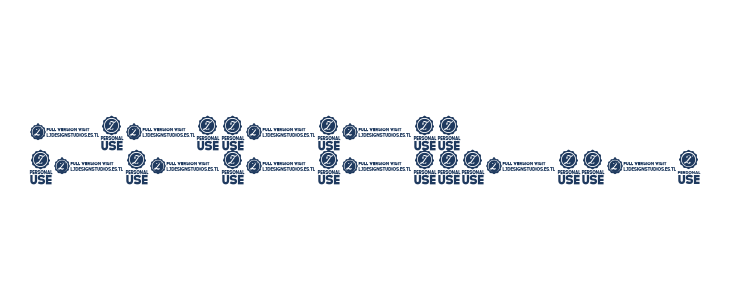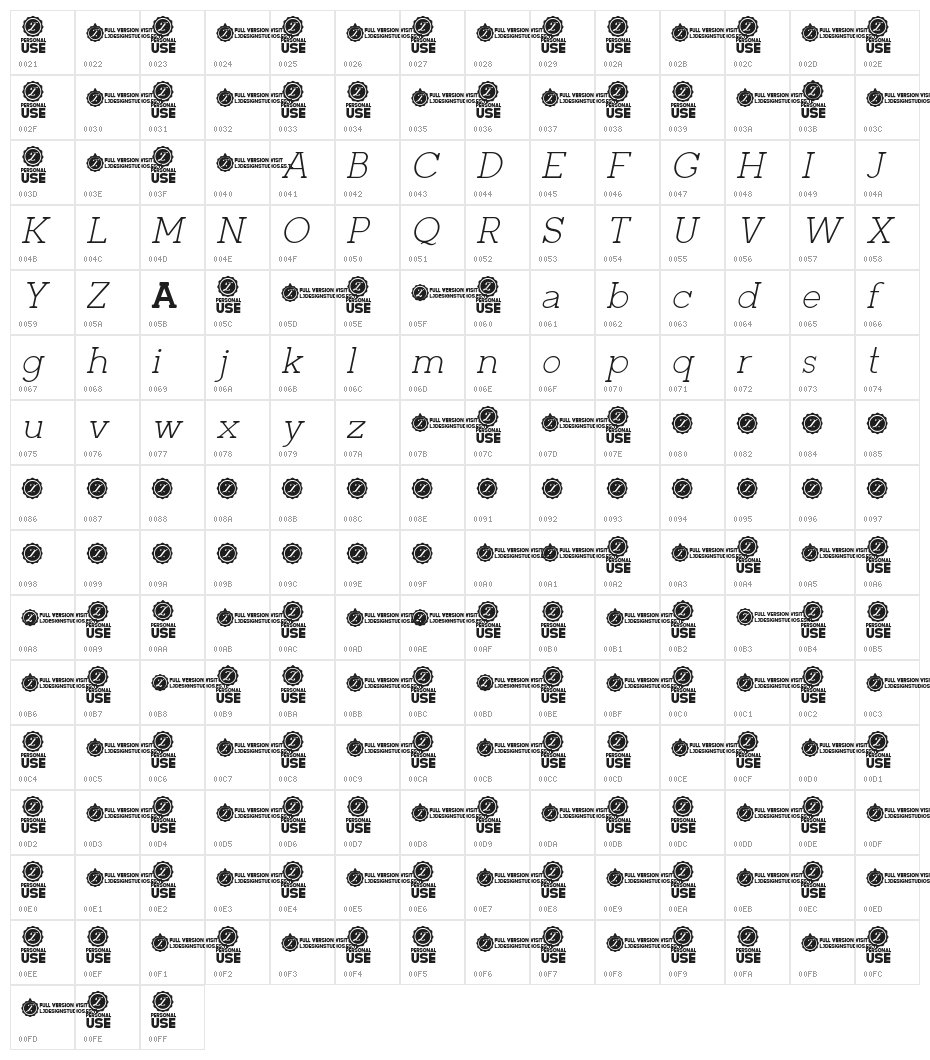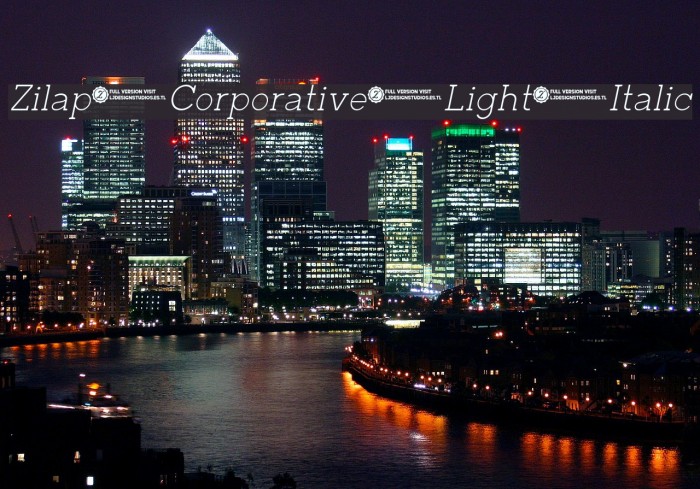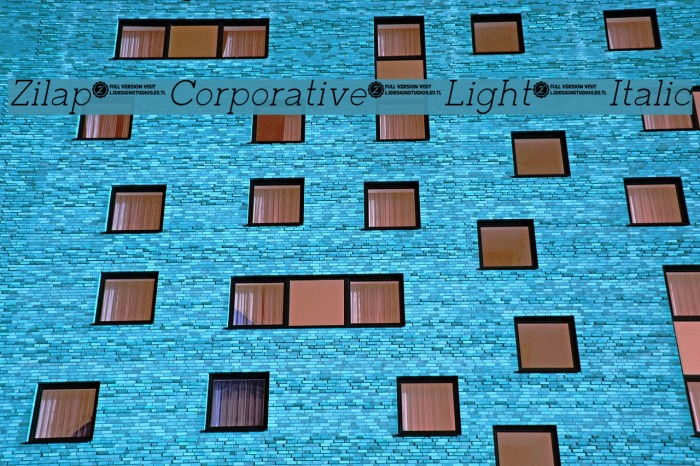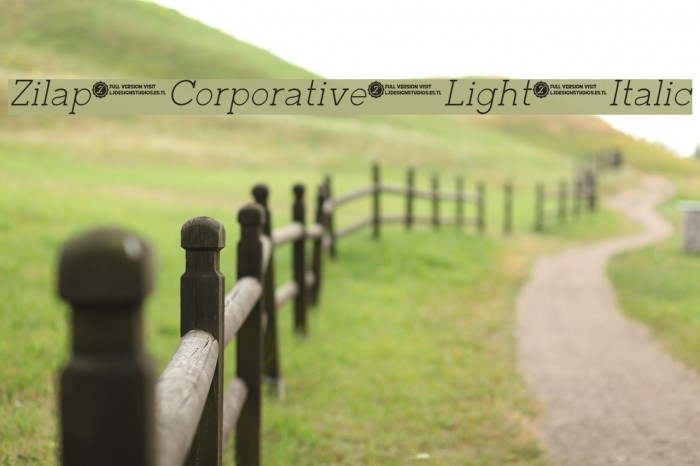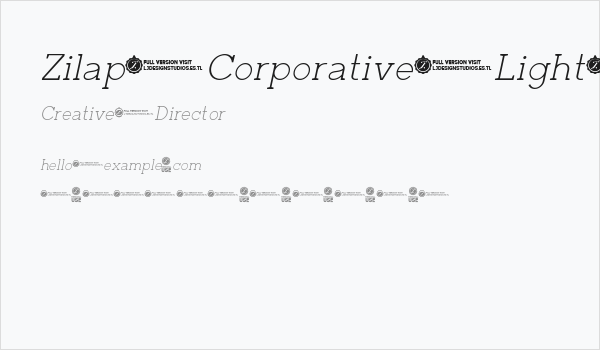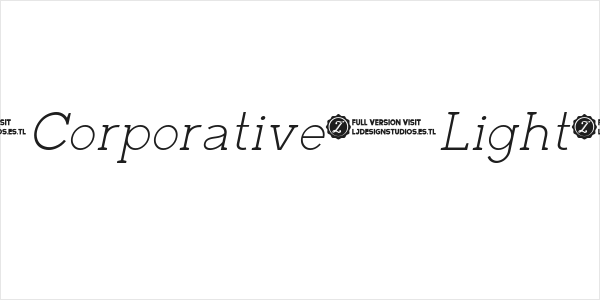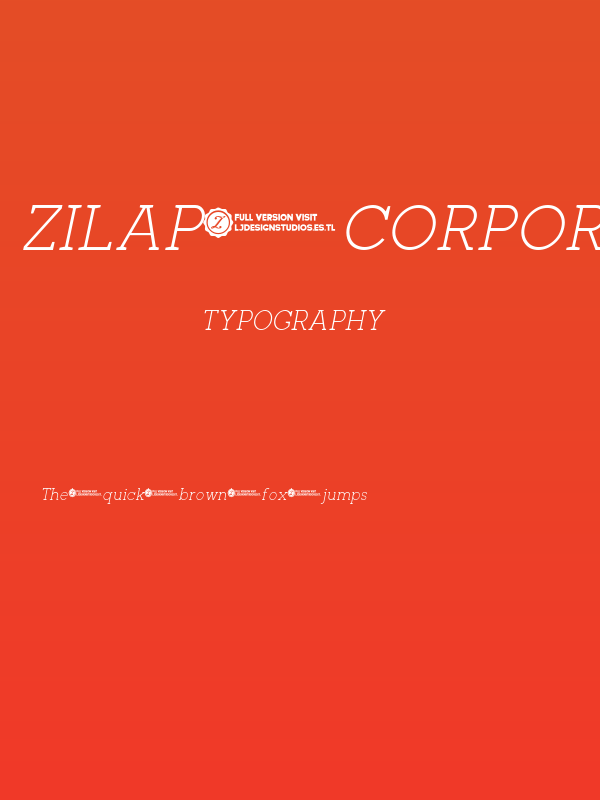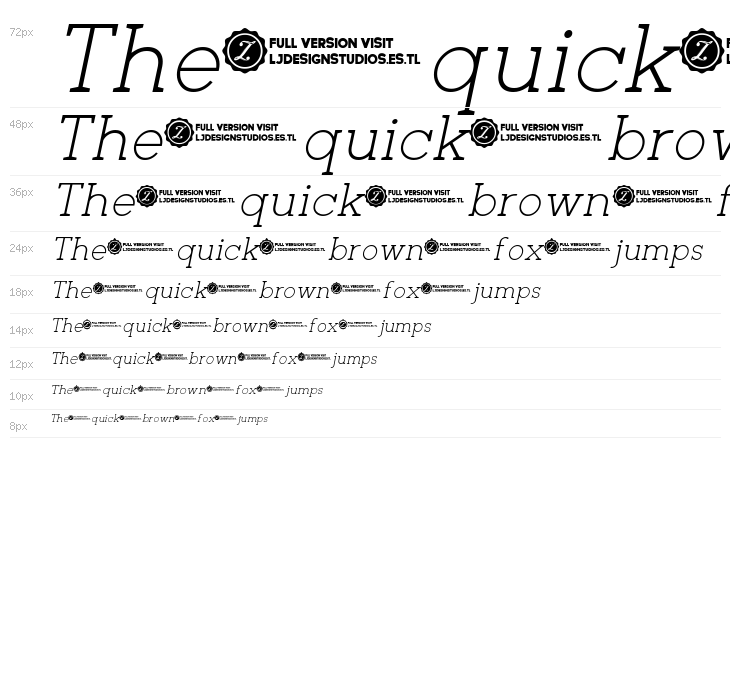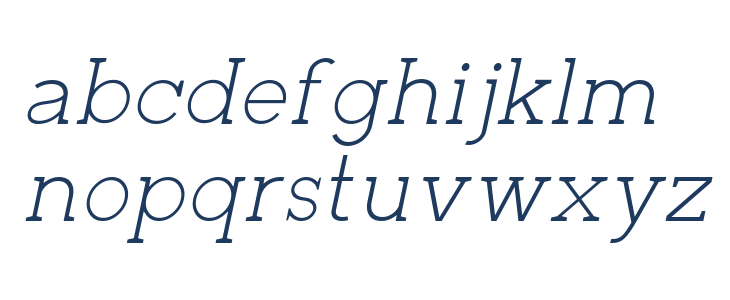
Zilap Corporative Light Italic Font
Zilap Corporative Light Italic Description
This font presents a sleek and modern design with a light and elegant touch. The italic style adds a sense of motion and fluidity, making it suitable for dynamic and creative projects. The characters are well-proportioned, with a slight slant that enhances readability while maintaining a sophisticated appearance. The font's thin strokes and minimal contrast between thick and thin lines contribute to its refined and understated elegance. It is versatile enough to be used in both digital and print media, offering a contemporary feel that can enhance branding and editorial designs.
| Proposed Projects | Ideal for branding, editorial design, fashion magazines, and creative projects requiring a modern touch. |